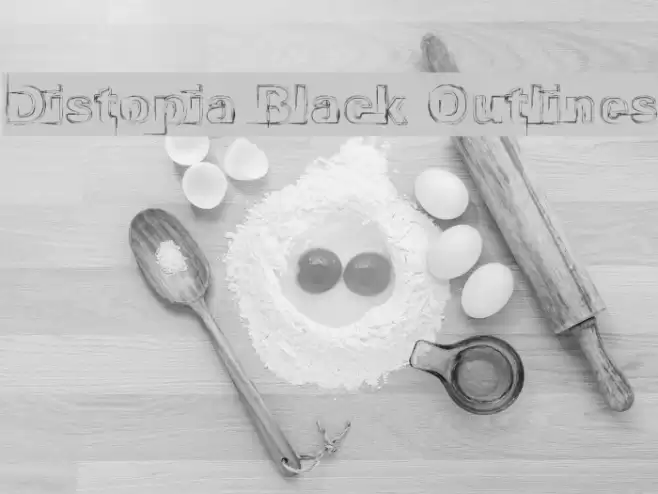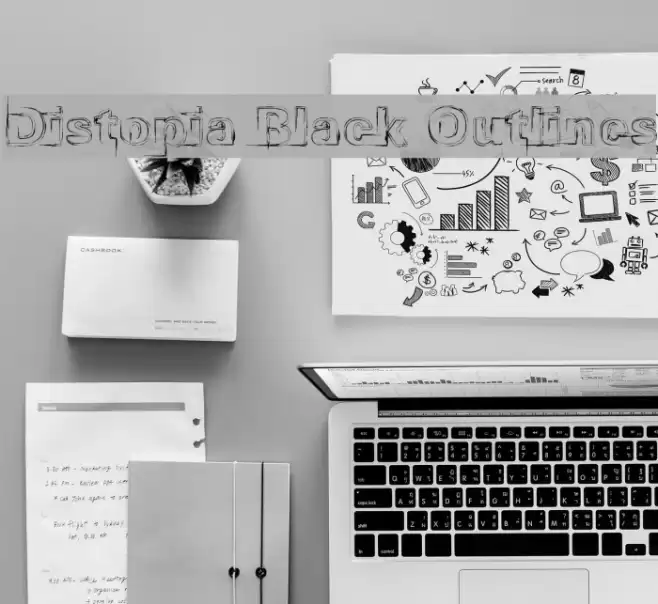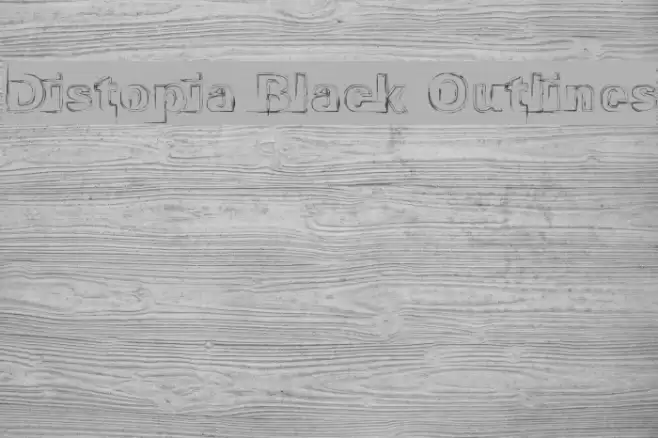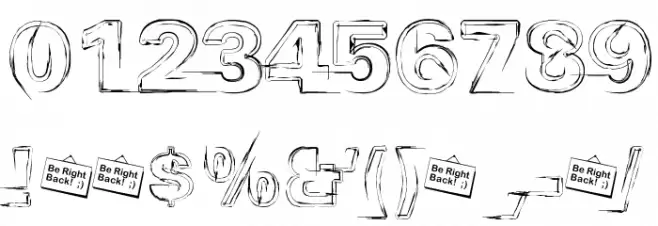
Distopia Black Outlines Font
Distopia Black Outlines Description
This font features a bold, outlined style with a distressed, sketch-like appearance. The uppercase and lowercase letters maintain a consistent height, giving it a uniform look. The characters are outlined with a rough, hand-drawn effect, adding a sense of edginess and modernity. The numbers and special characters follow the same design, ensuring cohesion across all elements. This font is ideal for projects that require a bold statement or a unique, artistic touch.
A bold, outlined font with a distressed, sketch-like appearance from Distorted Eroded fonts.
- Proposed Projects: Perfect for posters, album covers, urban-themed designs, and digital artwork.